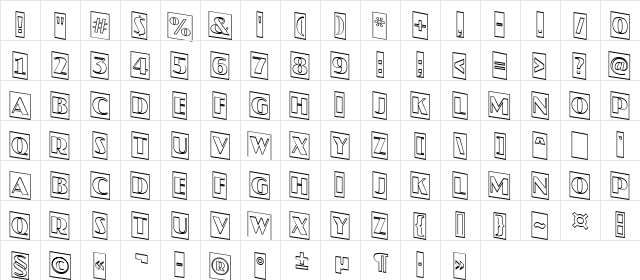
a_JasperCmOtlDn Regular
Design Context for a_JasperCmOtlDn Typeface
a_JasperCmOtlDn is a composed and adaptable typeface that performs quietly and consistently across a wide range of design contexts.